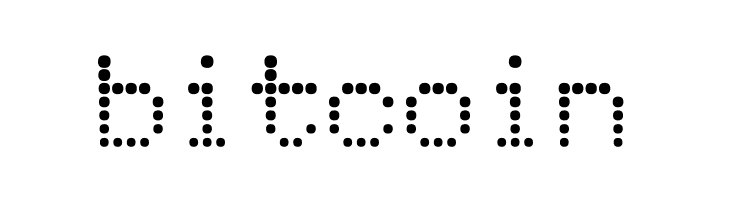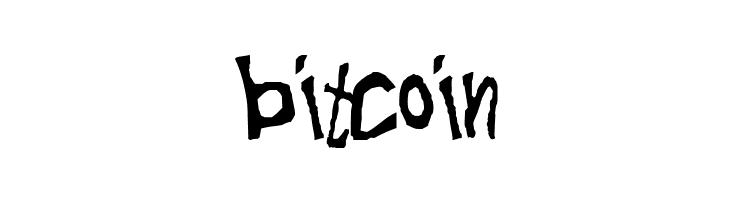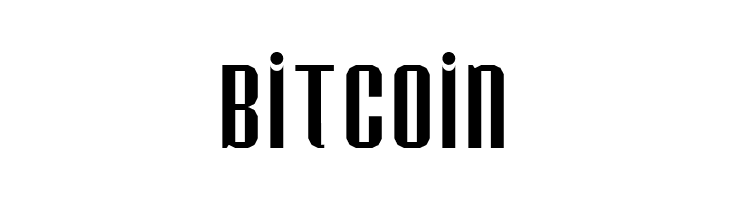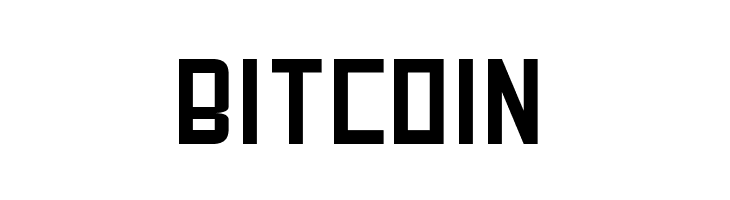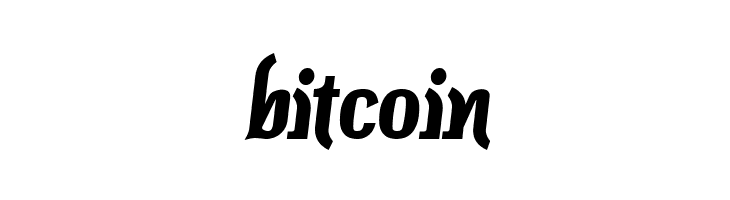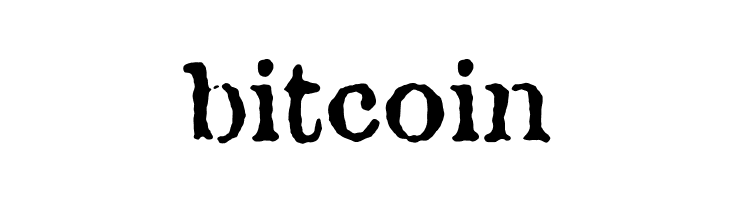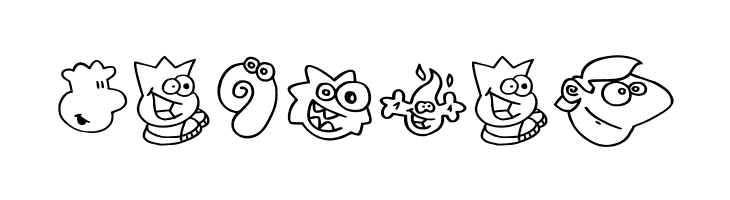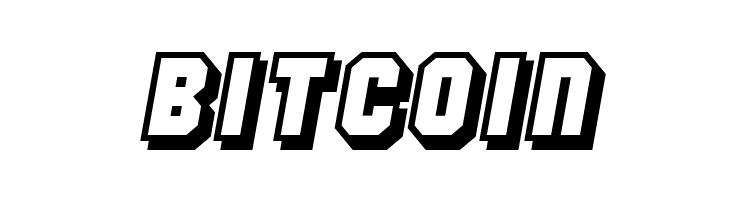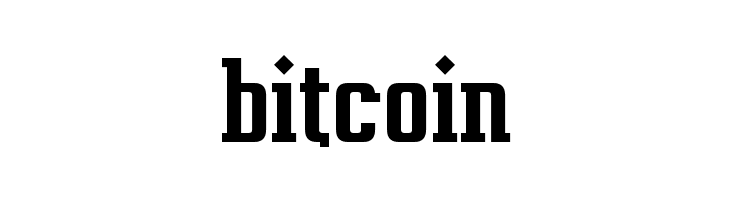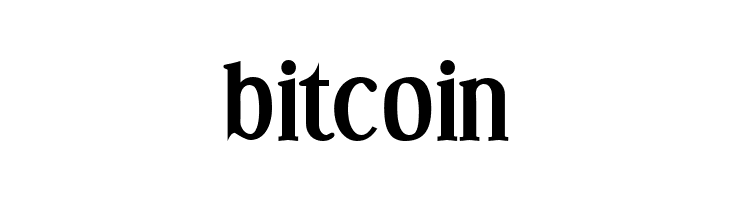
A dot-matrix style font with a digital, retro aesthetic.
A playful, hand-drawn font with irregular, artistic strokes.
A bold, condensed font with a modern yet vintage style, ideal for headlines.
A bold, dynamic font with a slight slant and strong presence.
A playful, cartoon-like font with exaggerated, humorous characters.
A bold, three-dimensional font with a strong shadow effect and geometric forms.
A bold, slab serif font with strong, well-defined characters.
A bold serif font with high contrast and classic elegance.
A bold, condensed font with high contrast and a modern style.
A bold, decorative font with a vintage and ornate style.
A bold, brush-like font with jagged strokes and an adventurous, dynamic style.
A bold, angular font with a vintage, geometric style.
A dot matrix style font with a modern, digital aesthetic.
A bold, angular font with a dynamic and geometric style.
A futuristic, geometric font with clean lines and unique character elements.
A bold, angular font with a modern and edgy design.
A bold, graffiti-inspired font with sharp, angular lines and dynamic curves.
A bold, playful font with exaggerated, irregular shapes and dynamic energy.
A sleek, italicized font with a modern and dynamic style.
A whimsical, hand-drawn font with an organic, playful style.
A bold, angular font with a dynamic and energetic style.
A bold, angular font with a rugged, hand-drawn style.